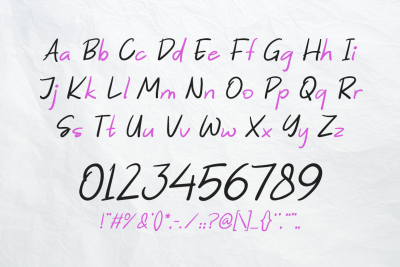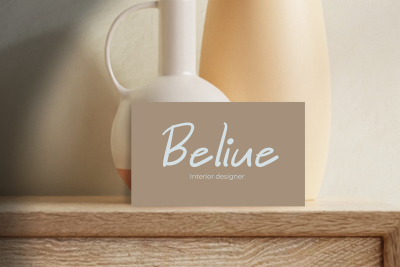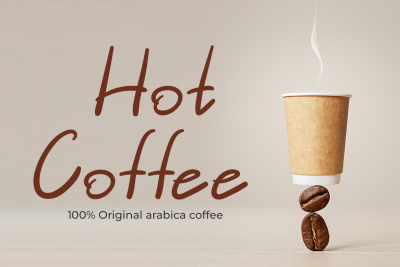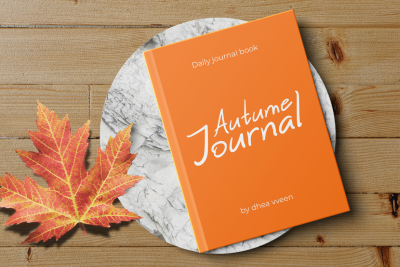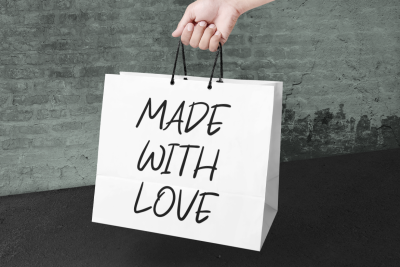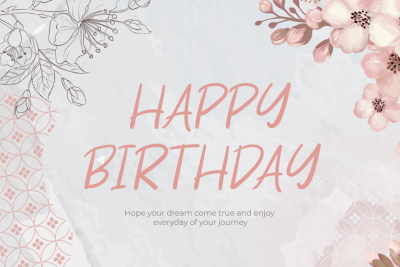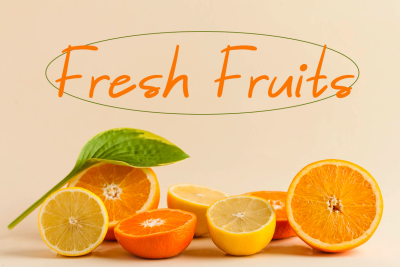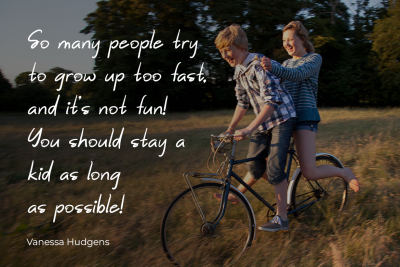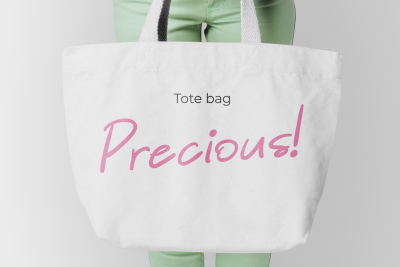
Handwriting Font CHICOLA is a graceful and elegant typeface. It seamlessly blends a natural handwritten feel with modern sophistication. With fluid curves and soft strokes, CHICOLA adds warmth, authenticity, and charm to any design. Whether used for branding, social media, or editorial work, this font creates a refined yet approachable aesthetic.
Moreover, CHICOLA is designed to emulate real handwriting, featuring well-balanced letterforms with a smooth, effortless flow. Its gentle strokes and stylish characters establish an organic rhythm, making it ideal for projects needing a personal touch. Furthermore, its versatility allows it to complement various design styles. From minimalistic compositions to intricate layouts, CHICOLA adapts beautifully to any visual concept.
Additionally, CHICOLA maintains high readability while preserving an elegant handwritten style. It pairs seamlessly with other fonts or stands out as a statement piece. As a result, its timeless appeal ensures designs remain fresh, engaging, and visually harmonious.
Handwriting Font CHICOLA For?
CHICOLA is ideal for designers, business owners, and creatives seeking a handwritten font that exudes class and warmth. This typeface is especially suited for:
- Branding & Logo Designers: Perfect for boutique brands, beauty businesses, and artisanal product packaging needing a sophisticated, handcrafted identity. Consequently, it enhances brand uniqueness and recognition.
- Social Media Creators & Influencers: Enhances Instagram posts, Pinterest graphics, and YouTube thumbnails with a soft and stylish handwritten feel. Therefore, it helps content stand out effortlessly.
- Wedding & Event Planners: A great choice for wedding invitations, RSVP cards, and event signage, adding an elegant and romantic handwritten touch. As a result, it elevates the overall presentation of special occasions.
- Editorial & Publishing Professionals: Works well for magazine covers, book titles, and blog headers needing a personal yet polished typography style. Furthermore, it ensures that each piece maintains both professionalism and creativity.
- DIY & Printable Creators: Suitable for planners, greeting cards, scrapbooks, and other creative projects that benefit from an artistic script. Consequently, it brings charm and personality to personal creations.
No matter your creative vision, Handwriting Font CHICOLA provides a timeless and stylish handwritten touch. Moreover, its elegance, versatility, and warmth make it essential for anyone seeking an expressive and sophisticated typeface. Whether for branding, social media, or event design, CHICOLA ensures every word leaves a lasting impression with charm and personality.